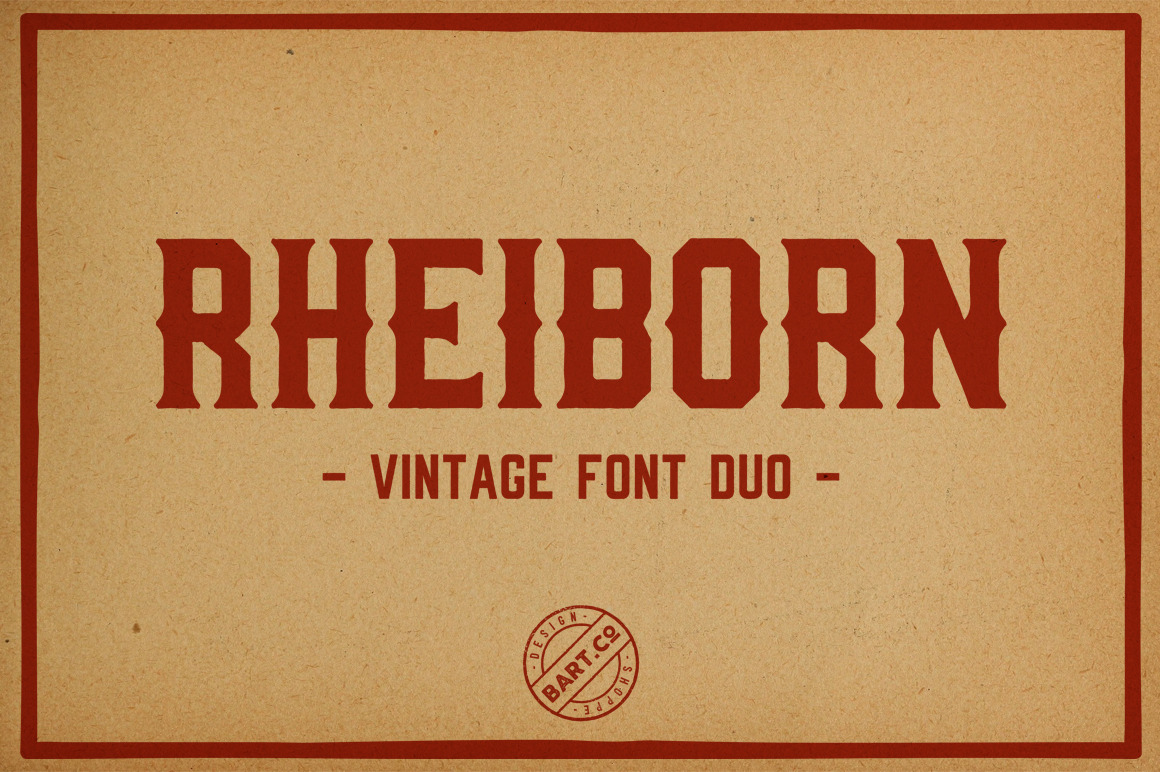
Rheiborn Font Duo (+ FREE FONT)
Rheiborn is a 2 font family with a mono weight and inked style edges.
Rheiborn is inspired by vintage american and european typography. These font duo is great for vintage style logos, badges, labels, posters etc.
- Rheiborn Display
- Rheiborn Sans
Font contains only basic western alphabet, numerics and special characters.